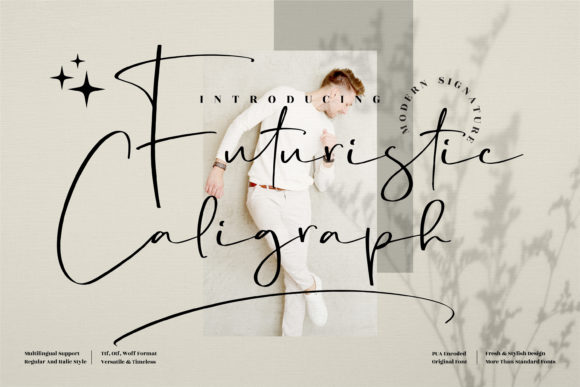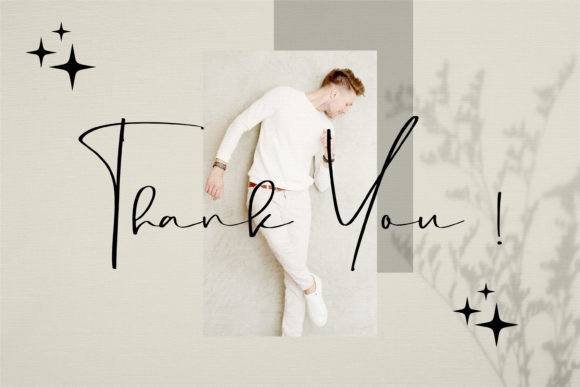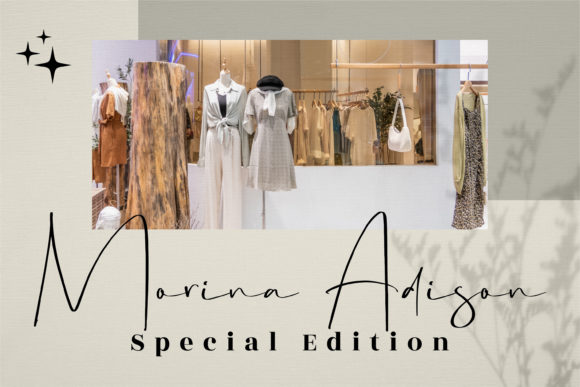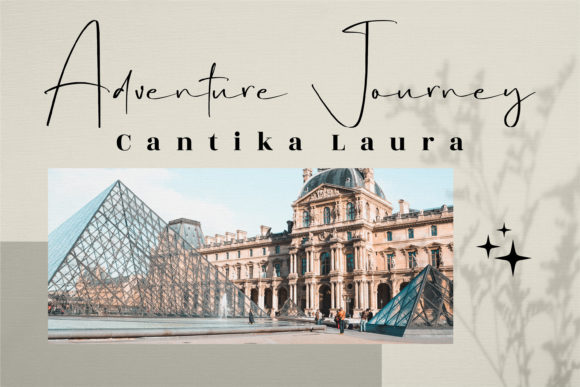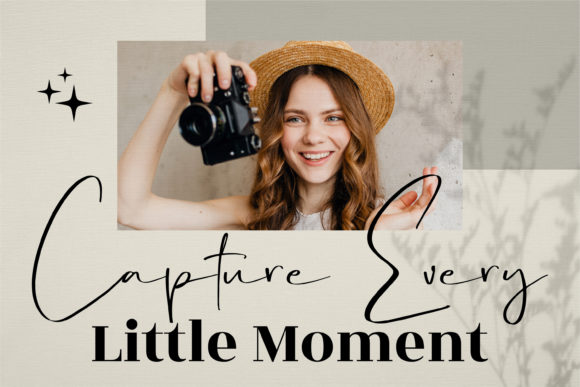
About Futuristic Caligraph Font
Futuristic Caligraph is a dazzling and thin lettered script font. This font is neatly crafted and highly detailed. Whatever the topic, Futuristic Caligraph will be a wonderful asset to your font library, as it has the potential to enhance any creation.